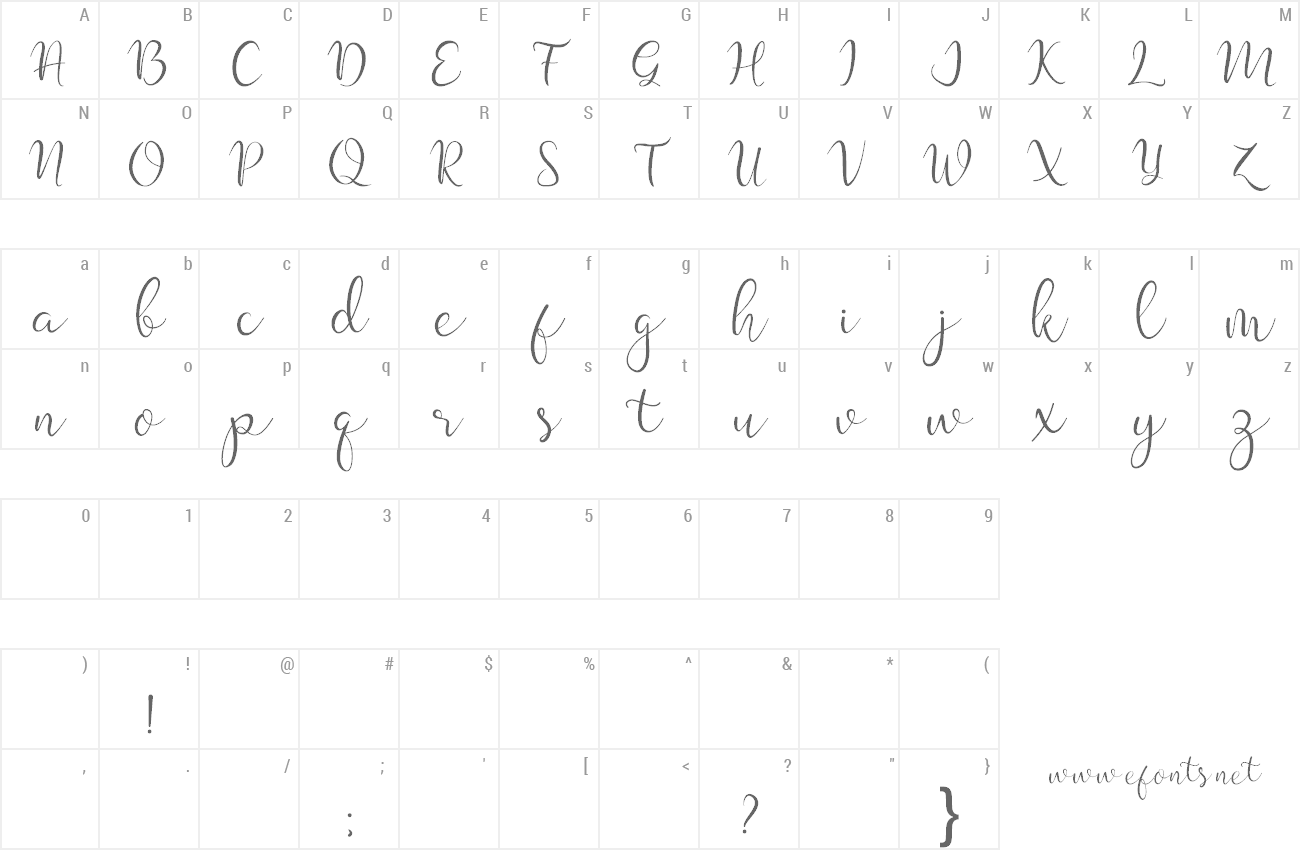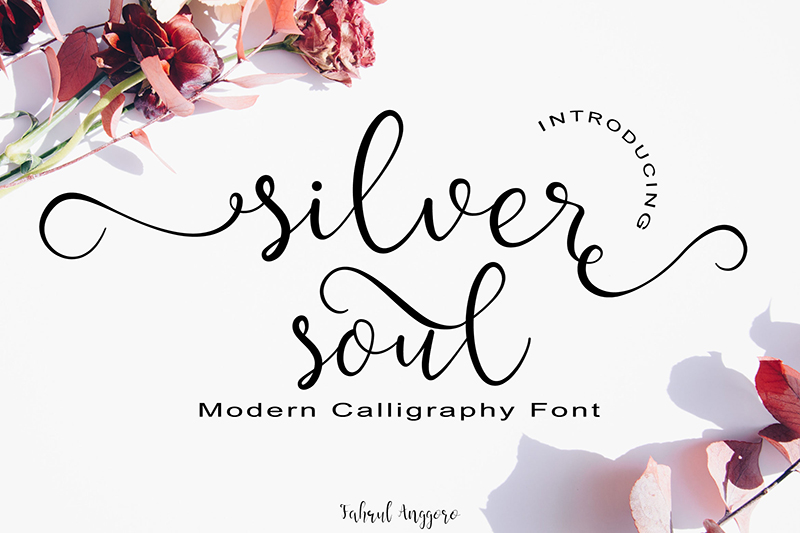
Preview and download Silver Soul Font. Created by Mohamad Fahrul Anggoro in Script Calligraphy styles with Free for personal use license.
Hi Everyone, Good news, now I want to intrduce my new font Called "silver soul" . silver soul Font is Elegant Modern Calligraphy font. It's very suitable for everything your design needs. I hope you like my product and donate with buy this font :) NOTE : This demo font is PERSONAL USE ONLY! But any donation are very appreciated. Link to purchase full version and commercial license: https://www.creativefabrica.com/product/silver-soul/ Please visit our store for more great fonts and follow my Store in Creativefabrica for update: https://www.creativefabrica.com/designer/fahrul-anggoro/ Thank You :) - Fahrul Anggoro - |